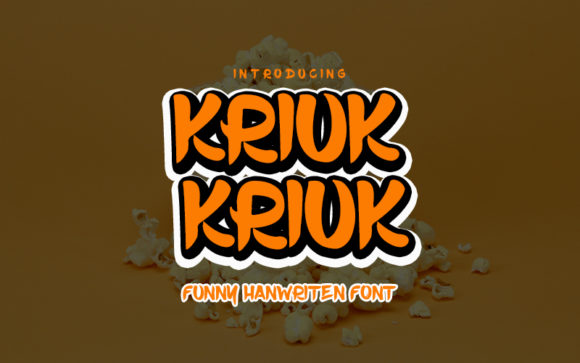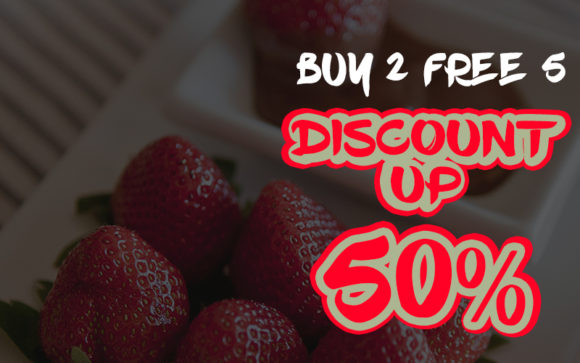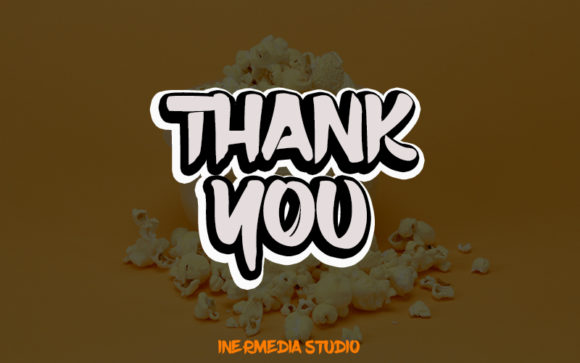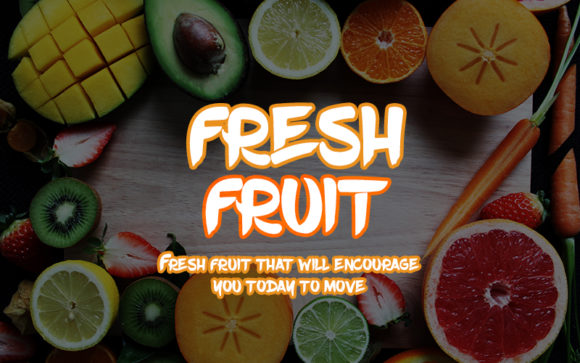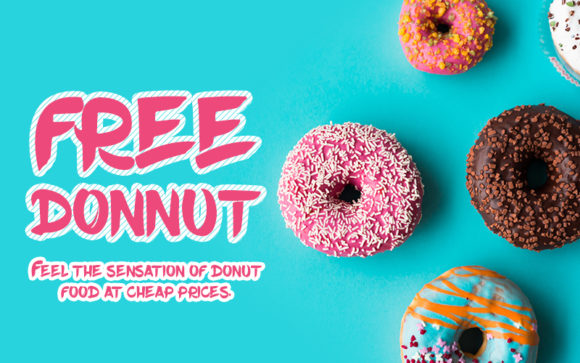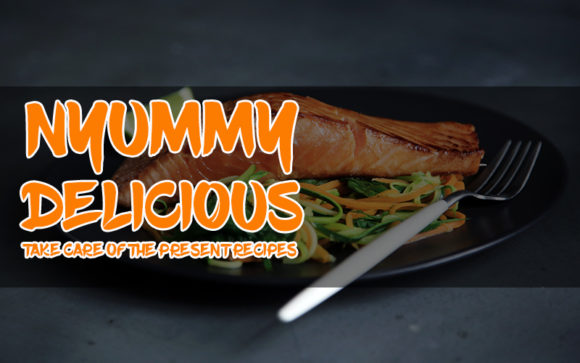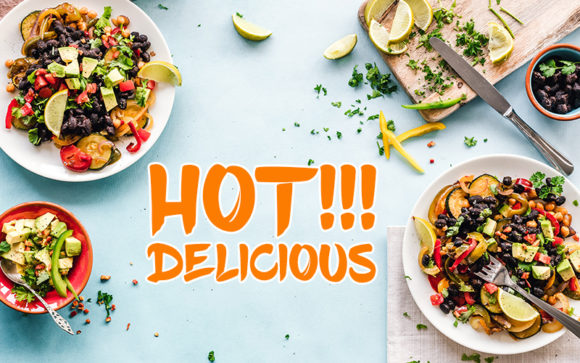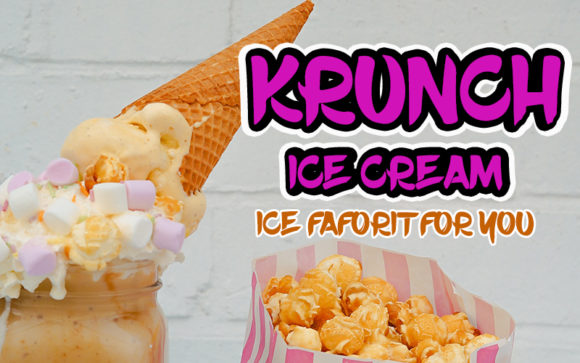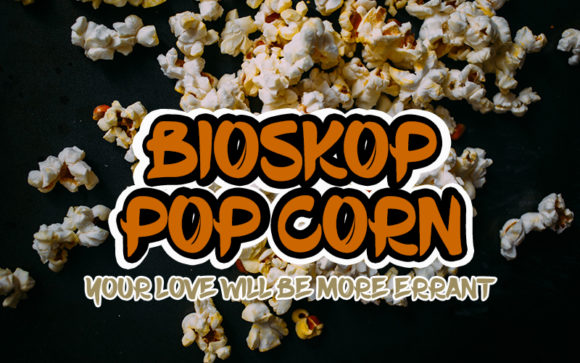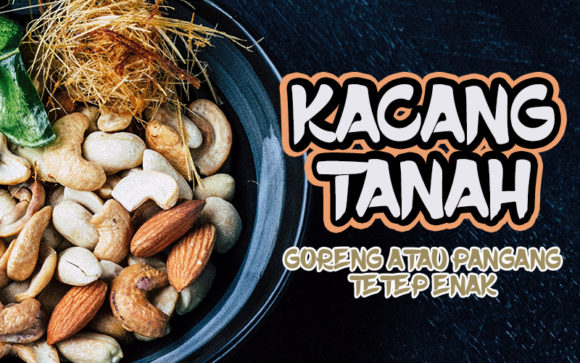
Kriuk Kriuk Font
About Kriuk Kriuk Font
Kriuk Kriuk embodies fun, quirkiness and authenticity. This enchanting handwritten font will turn any creative idea into a true standout.